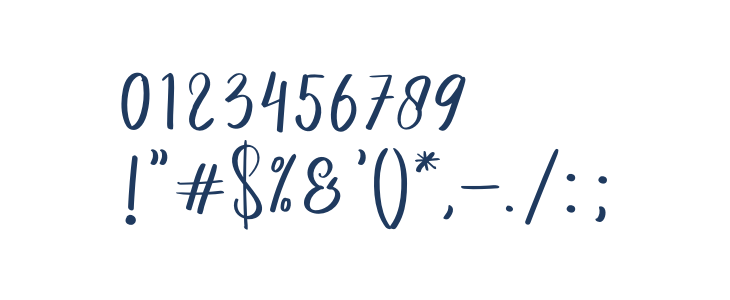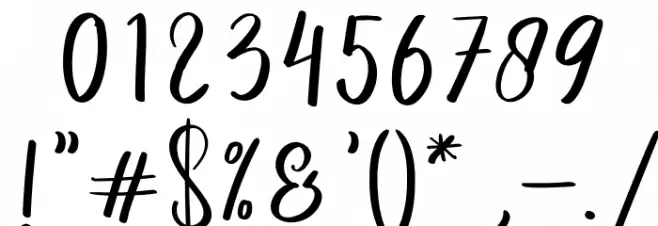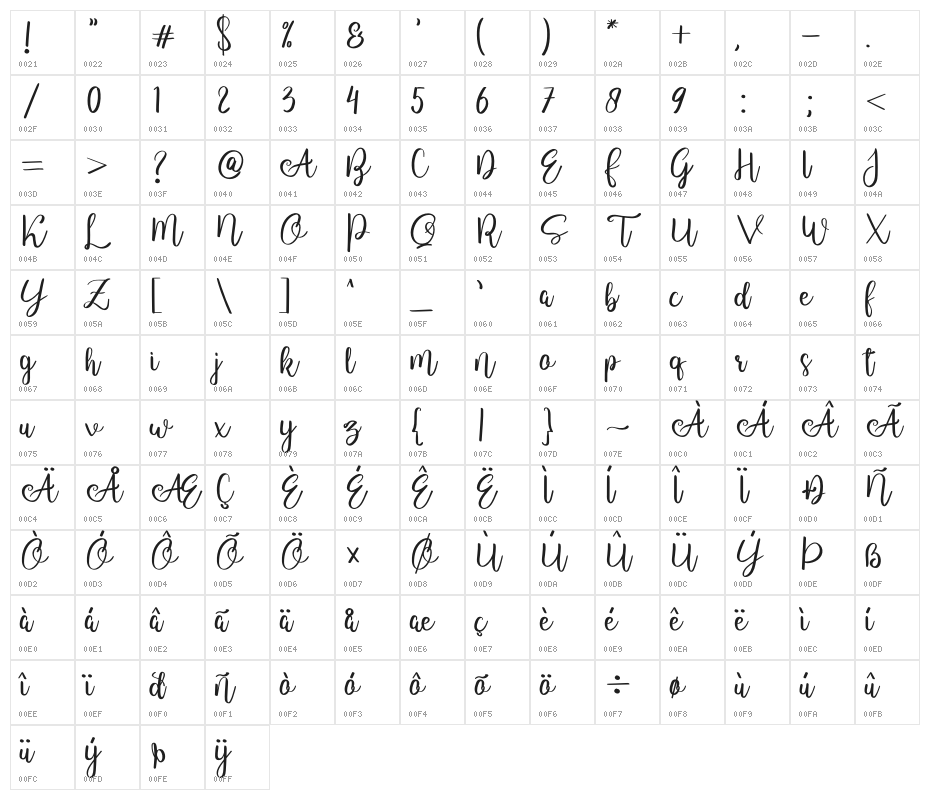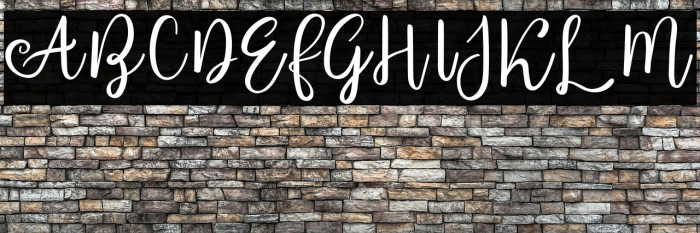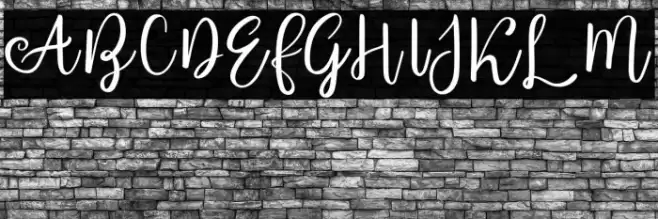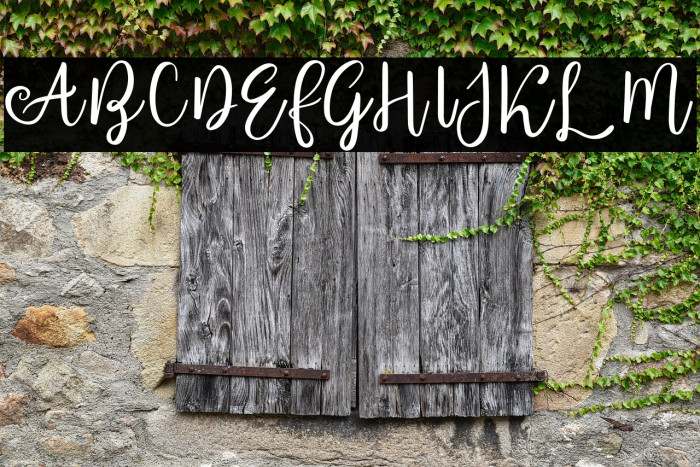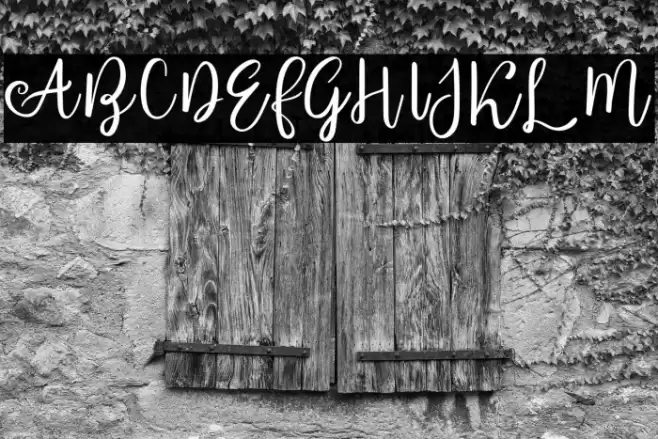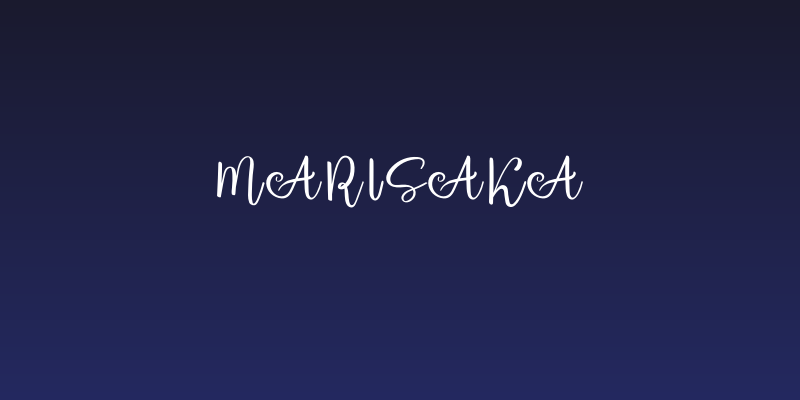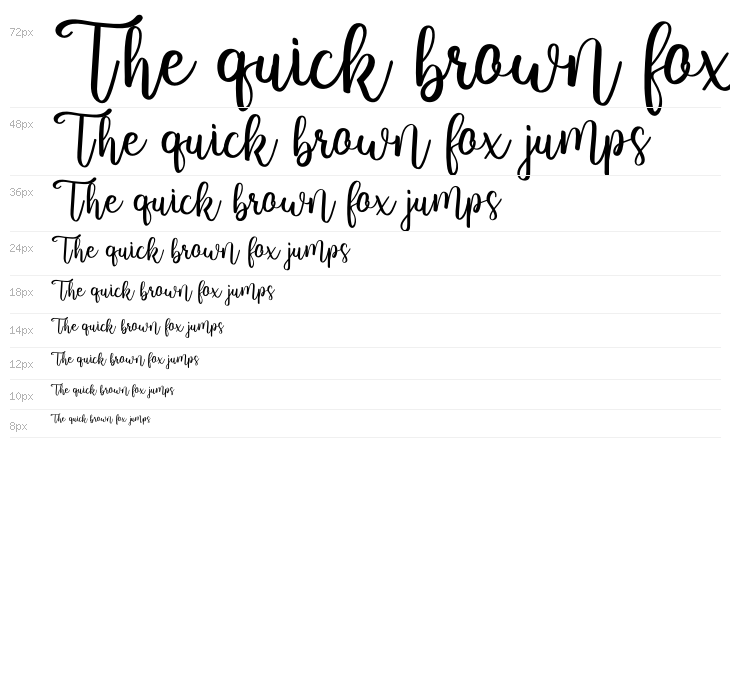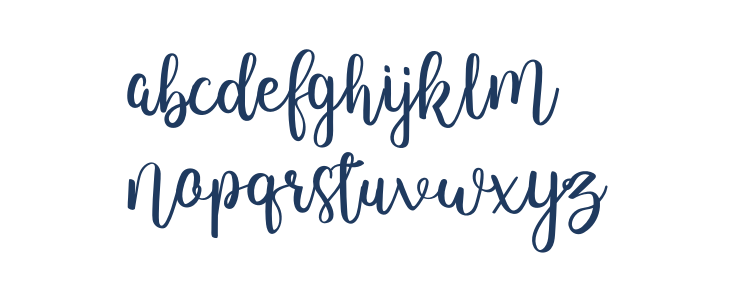
Marisaka Font
Marisaka Description
This font exudes a playful and elegant script style, characterized by its flowing, cursive letters that convey a sense of movement and grace. The uppercase letters are distinct with their looping ascenders and descenders, while the lowercase letters maintain a consistent rhythm and fluidity. The numerals are styled to match the script's overall aesthetic, providing a cohesive look. Special characters are thoughtfully integrated, maintaining the font's whimsical yet sophisticated appearance. This font is perfect for projects that require a touch of elegance and personality.
| Use Case | Logos, Invitations, Headlines |
| Proposed Projects | Ideal for wedding invitations, greeting cards, branding, and social media graphics. |